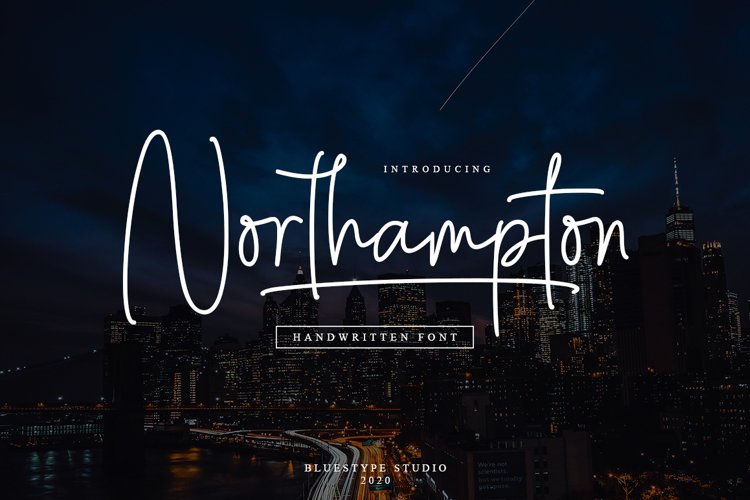
Northampton - Handwritten Signature
Northampton
This is our newest product called Northampton. Northampton is a stunning signature font with a cool twist, light and fun script, is the ideal typeface for design project !
This font is suitable for use on fashion, business cards, weddings, t-shirt designs, logos, magazines, quotes, photography, branding, watermarks, invitations, signatures.
- Ligature
- Swash
- Support Multilingual